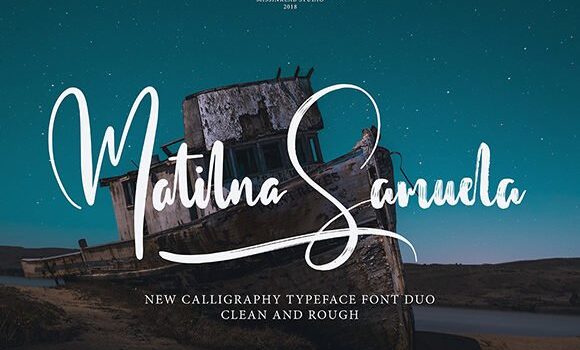
Matilna Samuela Font – Free Download Introduction to Matilna Samuela Font Matilna Samuela is a modern and lovely handwritten font with incredible elements. 📸 Preview Gallery 3 images 📌 Product Name Matilna Samuela Font 👤 Author Pineungtype & Missinklab 📂